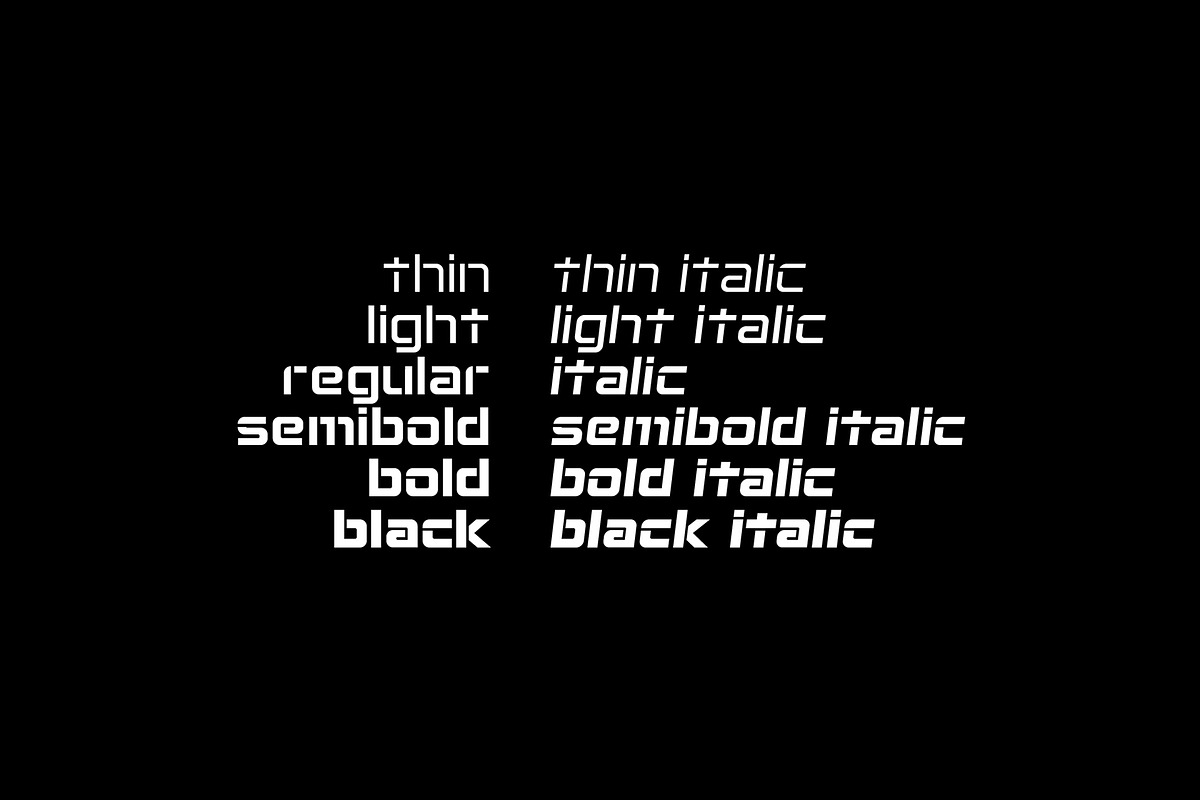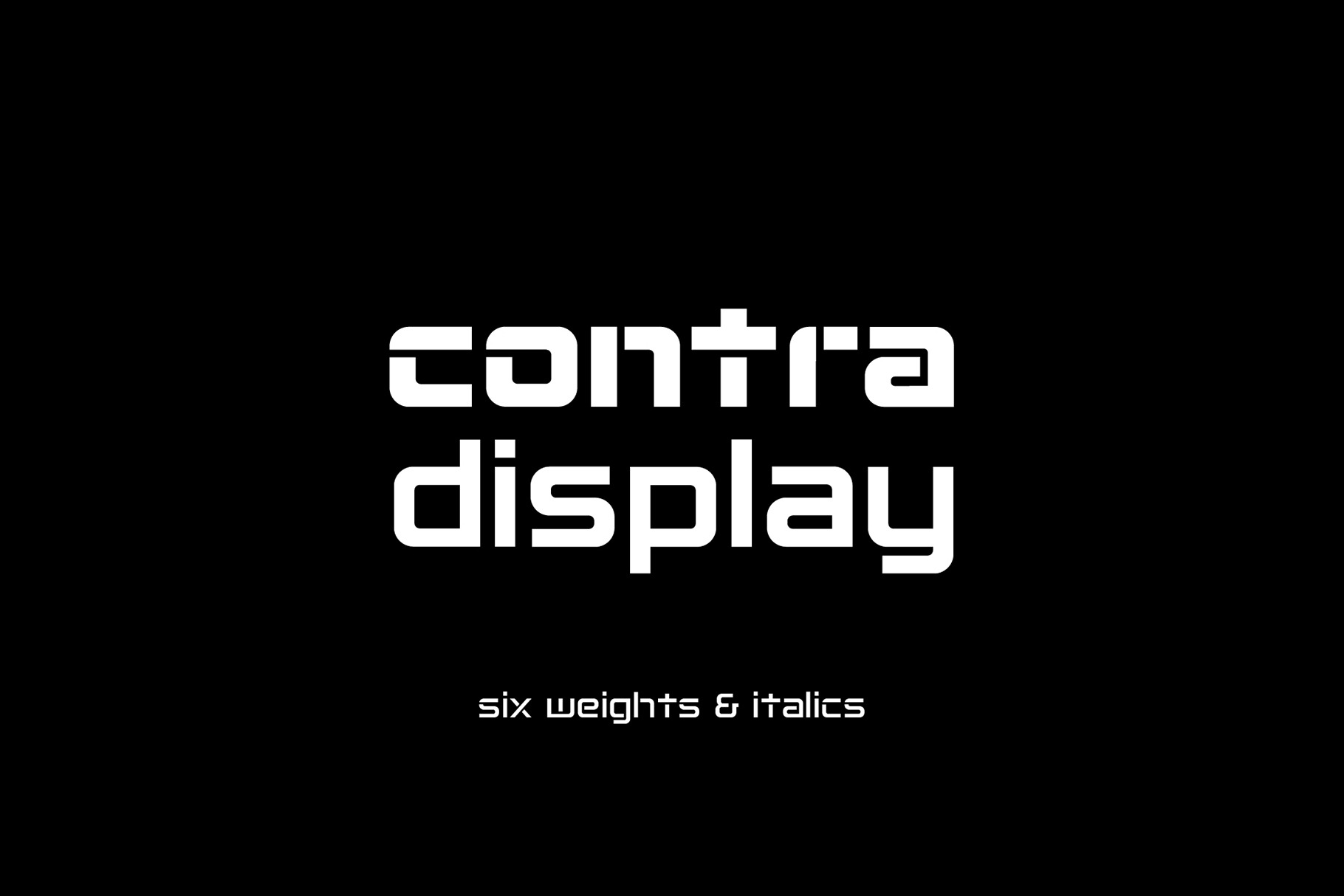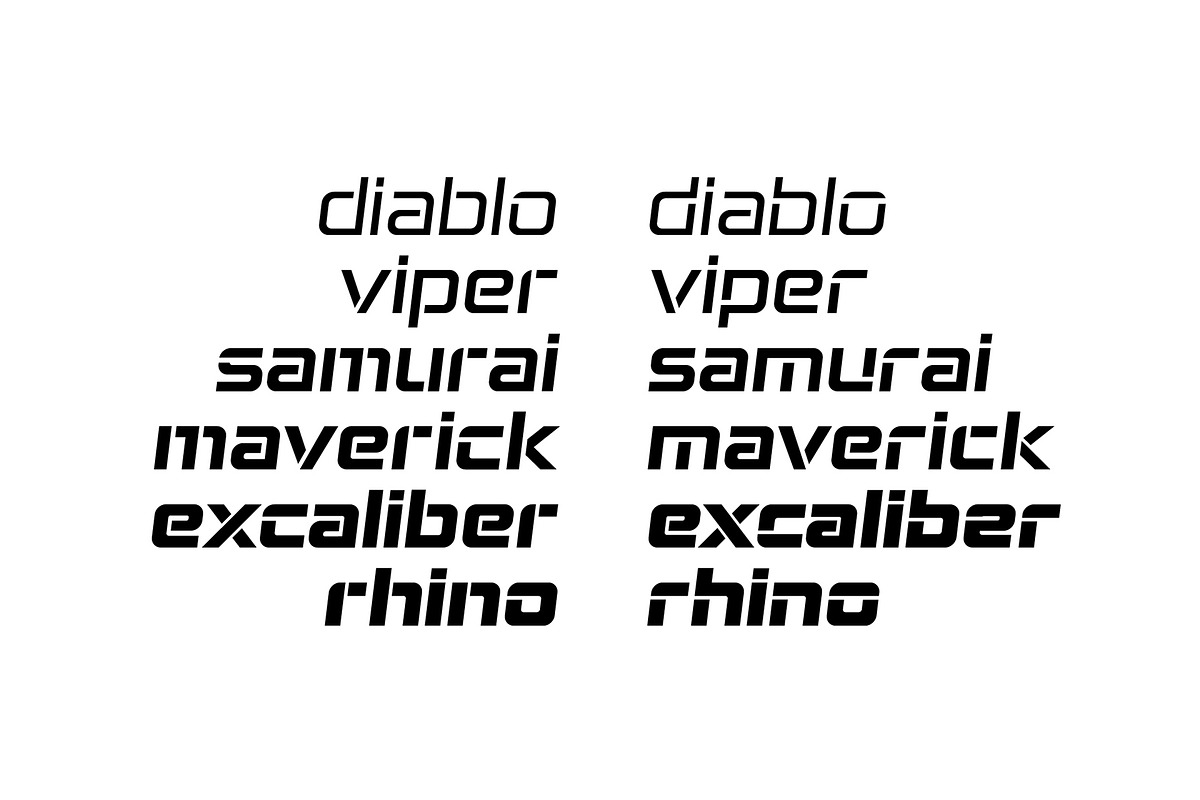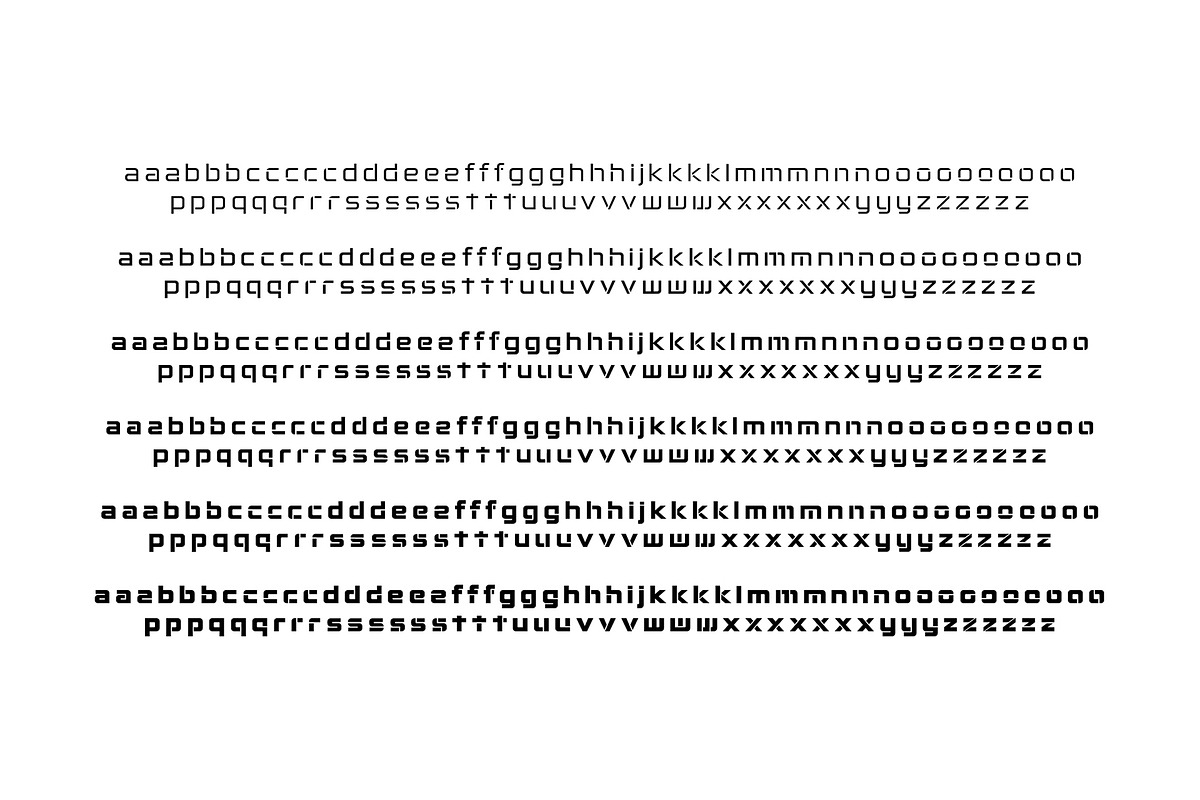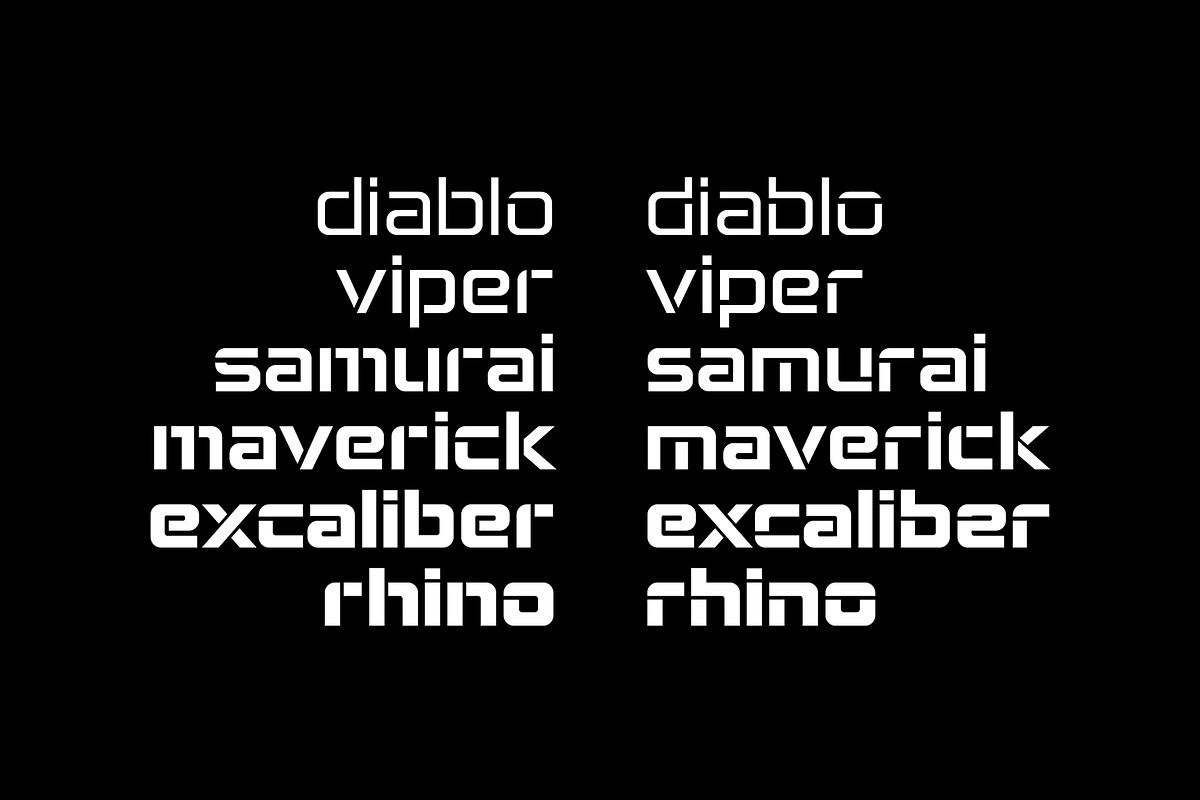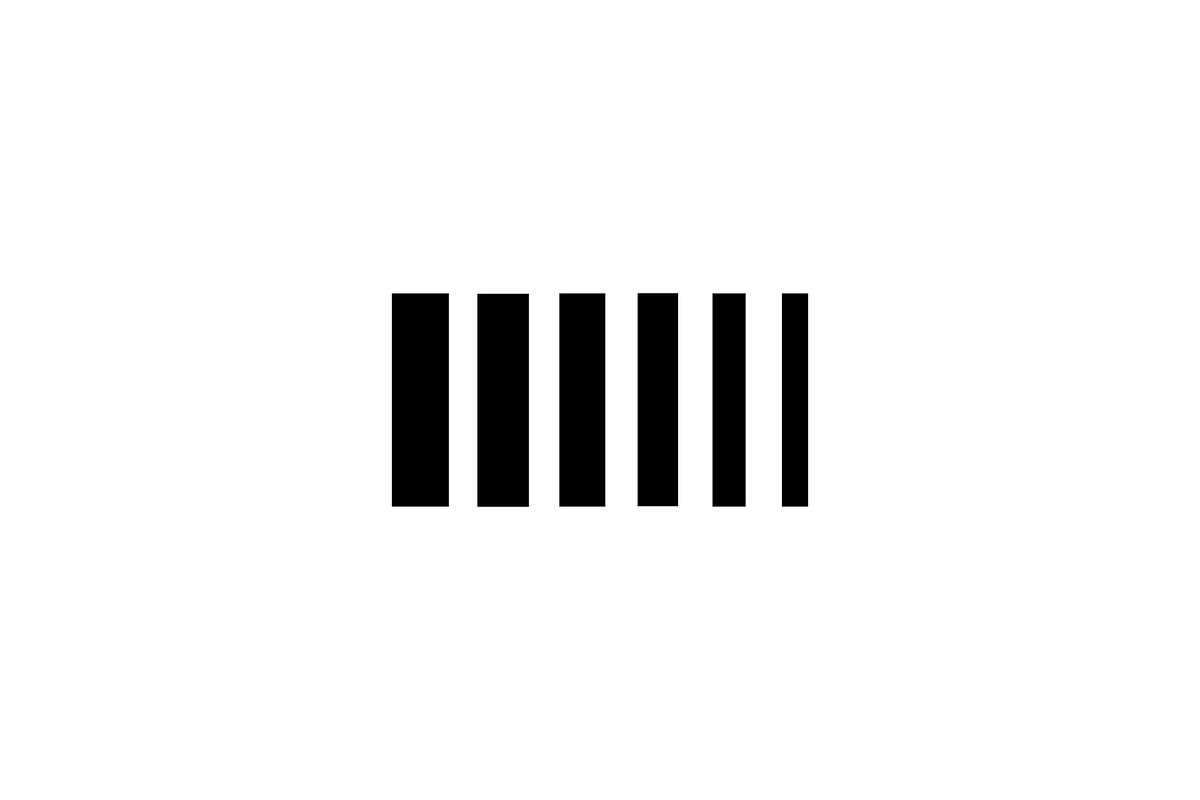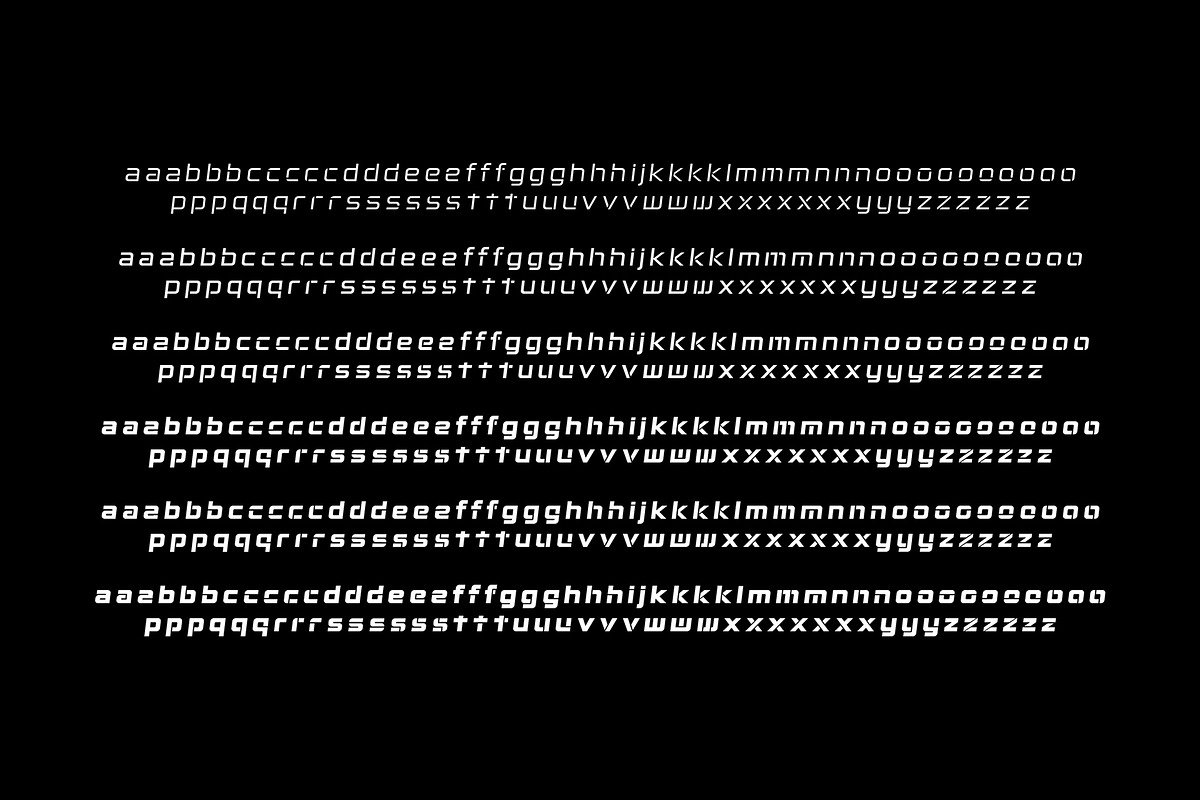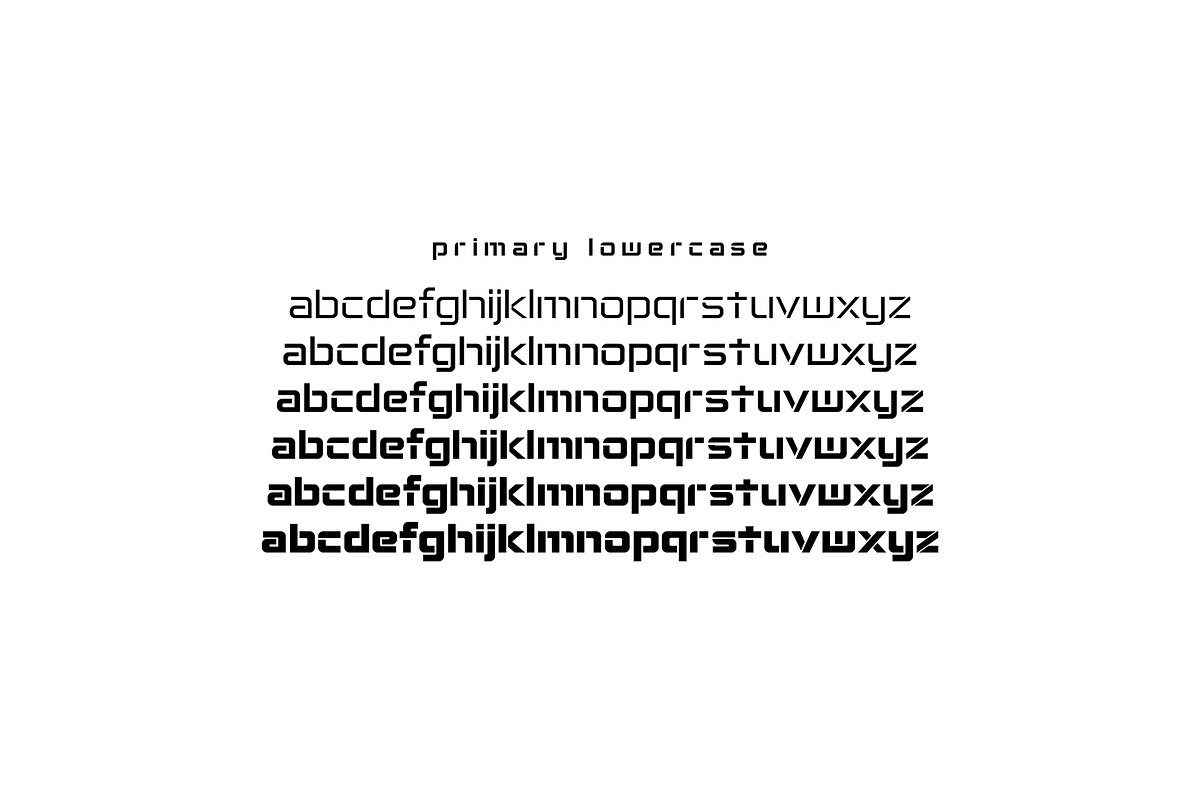
Contra Display Typeface
Contra display is a lowercase only techno display inspired by heavy work horse brands such as Carhartt with a mix of stylish automotive sport brands. It's a modernized mechanical and technical display stencil typeface. It comes with 6 weights in the family and italics: Thin, Thin Italic, Light, Light Italic, Regular, Italic, SemiBold, SemiBold Italic, Bold, Bold Italic, Black and Black Italic.
It also includes Opentype features such as stylistic alternatives to each character. Just highlight a letter and select the one that best fits.